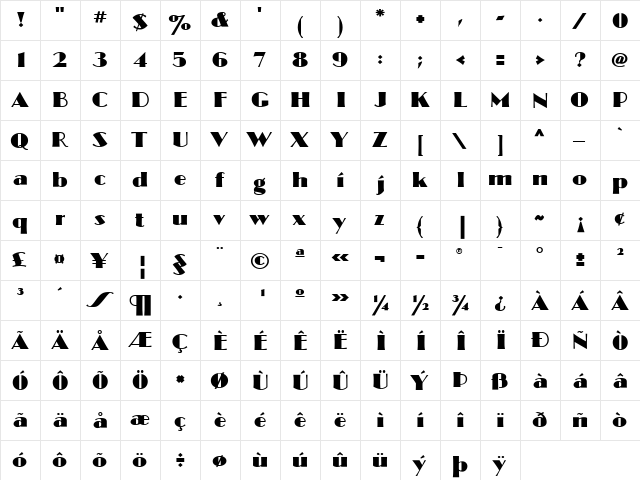
UltramodernClassicSG Regular
Design Context for UltramodernClassicSG Typeface
UltramodernClassicSG wears its vintage influences proudly, with letterforms that recall mid-century signage, classic packaging, and nostalgia-driven design.
Perfect for vintage-inspired branding, retro packaging, nostalgia campaigns, and period-accurate editorial design.
Font Pairing: Combine UltramodernClassicSG with a simple slab or neutral sans — period-accurate companions reinforce the vintage feel without competing for attention.
Pro Tip: Use UltramodernClassicSG for headlines and pull quotes rather than body copy — its personality is best appreciated in short, focused bursts.